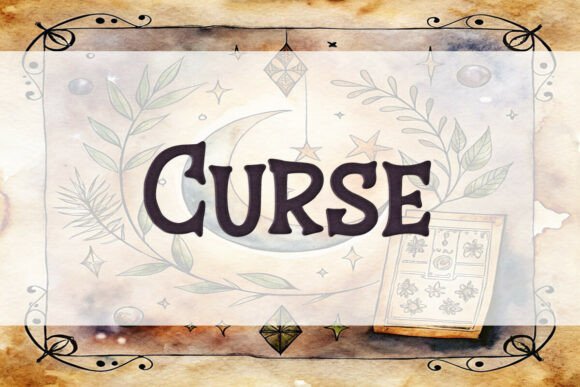
Unleash Your Creativity with the Curse Font
Have you ever been stuck in a design rut, feeling like your creations just aren’t coming together the way you envision them? We’ve all been there. But what if you had a secret tool that could breathe new life into your projects and leave a lasting impression on your audience?
Enter the Curse Font, a game-changing design element that’s perfect for anyone looking to elevate their craft. This versatile font is designed to be used on a wide range of projects, from shirts and stickers to magazine layouts and greeting cards. Its unique aesthetic makes it an unmissable asset for Cricut projects, adding an extra touch of charm to your designs and making them truly unforgettable.
With the Curse Font, you’re not just crafting designs – you’re crafting stories that will resonate with your audience and leave a lasting impact. Whether you’re a seasoned designer or just starting out, this font is a valuable addition to your toolkit, helping you to break boundaries and push the limits of your creativity.
Curse Font Key Features
- Unique Character Set: Curse Font features a unique character set, including a wide range of special characters, symbols, and glyphs, making it ideal for graphic designers, typographers, and creatives.
- Extended Language Support: Curse Font supports extended language sets, including Latin, Cyrillic, Greek, and many other languages, allowing for global use and application.
- High-Quality Typography: Curse Font is designed to deliver high-quality typography, with precise letterforms, smooth curves, and expertly crafted details, making it suitable for a wide range of applications.
- Customization Options: Curse Font offers customization options, including font size, color, and style, allowing users to tailor the font to their specific needs and preferences.
Curse Font Review
When I first laid eyes on the Curse Font, I was immediately struck by its dark, gothic aesthetic. The font’s dramatic flair and ornate details evoke a sense of mystery and foreboding, making it perfect for horror-themed projects or anything that requires a touch of darkness.
- The font’s dramatic flair is sure to grab attention and create a lasting impression.
- Its high level of customization options makes it suitable for a wide range of design projects.
- The font’s legibility is surprisingly good, considering its complex design.
- The font’s complexity may make it difficult to use for body text, as it can be overwhelming.
- The font’s lack of consistency in its letterforms can make it look uneven at times.
- Its usage in small font sizes may lead to readability issues.
Overall, the Curse Font is a solid choice for designers looking to add a touch of darkness to their projects. While it may have some limitations, its unique aesthetic and high level of customization options make it a valuable addition to any designer’s toolkit.
Tip: Use Curse Font to add a spooky or mysterious touch to your designs, especially for Halloween-themed projects.
Tip: Use Curse Font to create eerie and atmospheric effects in your designs, such as horror movie posters or haunted house advertisements.
Tip: Use Curse Font to add a touch of darkness and mystery to your presentations or documents, such as for a crime scene investigation or a horror-themed report.
Curse Font is commonly used in designs that require a spooky or mysterious atmosphere, such as:
- Halloween-themed projects
- Horror movie posters
- Haunted house advertisements
- Crime scene investigation reports